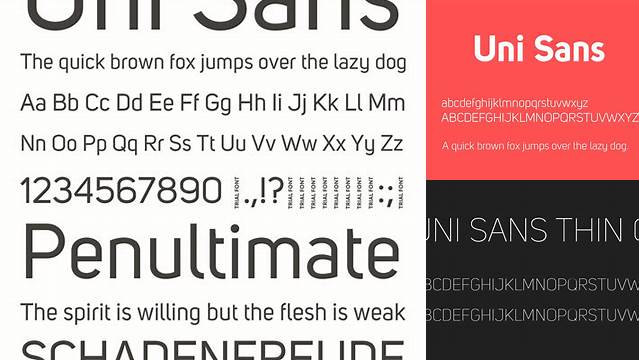
Uni Sans Medium Font: A Versatile Design Choice
So, what exactly makes the Uni Sans Medium font so special? Let me tell you, guys, it's a real workhorse in the design world. First off, it's a sans-serif font, meaning it doesn't have those little decorative strokes (serifs) at the ends of the letters. This gives it a clean, modern look that's super readable, especially on screens. The 'Medium' in its name refers to its weight – it's not too thin, not too bold; it's just right for a variety of uses. Think of it like Goldilocks and the porridge! Uni Sans Medium is a font that strikes a perfect balance. It's clear enough for body text but also has enough personality to stand out in headlines and titles. It’s a favorite for branding, web design, and even print materials. Its clean lines and simple structure make it incredibly adaptable, seamlessly blending into any design aesthetic. It's particularly effective in creating a sense of professionalism and trustworthiness. You'll see it used in everything from corporate websites to stylish magazine layouts. The font's versatility allows designers to create a consistent and cohesive look across various platforms. This consistency is key in establishing a strong brand identity. Because of its readability, the font is also great for user interfaces and app designs. Whether you're working on a sleek website or a vibrant poster, the Uni Sans Medium font can significantly elevate your project. Its modern appearance is a timeless design choice, ensuring that your work remains current and aesthetically appealing. Additionally, the font’s adaptability makes it suitable for international projects, providing clarity across multiple languages. Its straightforward design helps to avoid any cultural misinterpretations. Overall, Uni Sans Medium font is a solid choice for anyone looking for a clean, readable, and versatile typeface, allowing you to create amazing work, guys!